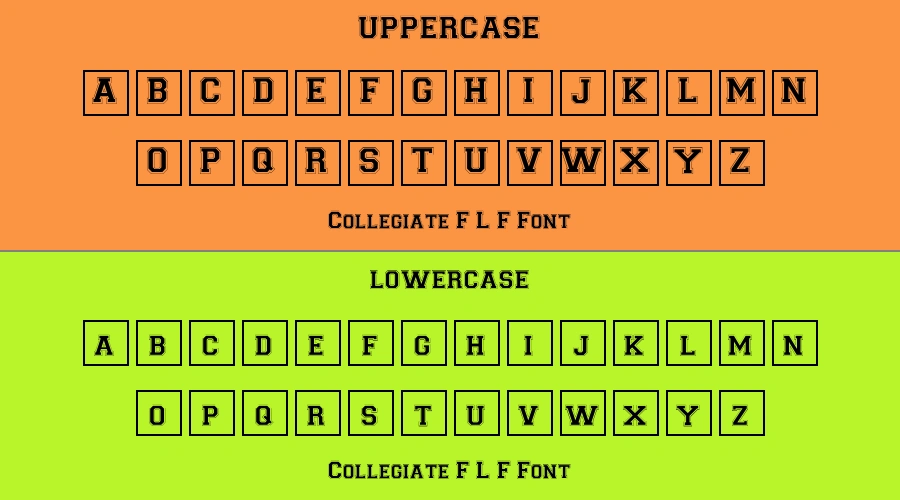
About Collegiate F L F Font
When typographic excellence matters most, Collegiate F L F Font delivers through its thoughtful blend of graceful serifs and reliability. Specially crafted for newspaper text, it offers the functionality and creative potential required for sophisticated design work. Every detail serves a purpose.
The character set showcases thoughtful details like precise joints alongside functional arrow sets. This proves especially valuable in hero imagery, where headline impact directly influences results. Particular attention was paid to x-height and standards alignment during development.
Collegiate F L F Font |